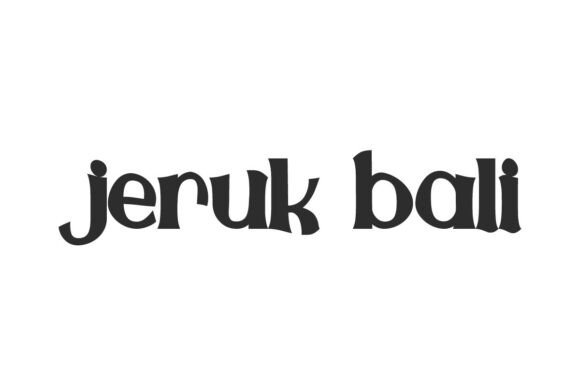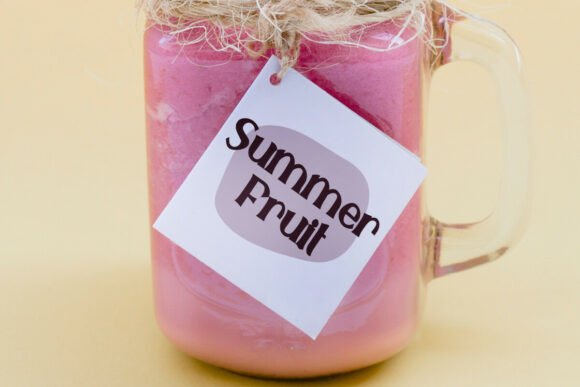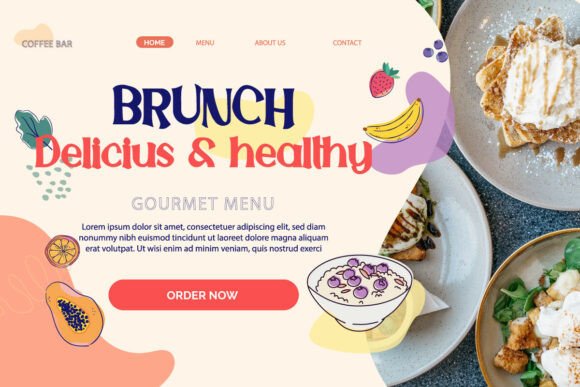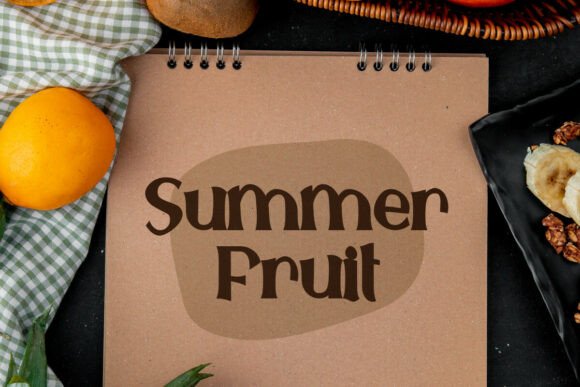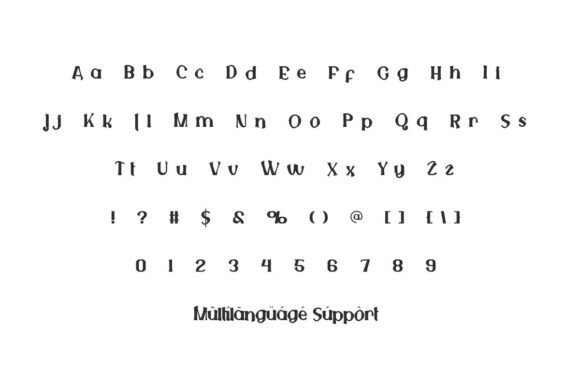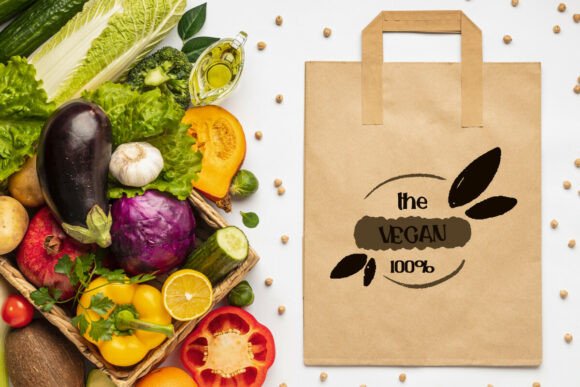
Introduction to Jeruk Bali Font Font
Fonts play a crucial role in design, and the Jeruk Bali Font font is a typeface that brings both character and versatility to any project. Whether you’re working on a branding project, a website, or a print design, the Jeruk Bali Font font offers a unique style that can elevate your work.
Jeruk Bali is a distinctively bold and playful display font that merges heavy weight with elegant, high-contrast curves for a truly unique look.
This contemporary typeface is characterized by its large, dramatic serifs and chunky letterforms, creating a powerful yet whimsical aesthetic that immediately draws the eye The unique design of the Jeruk Bali font makes it memorable and perfect for brand titles and impactful headlines.
Key Features of Jeruk Bali Font Font
Why Choose Jeruk Bali Font Font?
The Jeruk Bali Font font is more than just a typeface – it’s a design tool that helps you communicate your message with style and clarity. Its unique character set and versatile design make it suitable for a wide range of applications, from elegant invitations to bold headlines.
With its carefully crafted letterforms and balanced proportions, the Jeruk Bali Font font ensures readability and visual appeal across all mediums.
What makes Jeruk Bali Font font special?
The Jeruk Bali Font font stands out with its unique design, exceptional readability, and versatility across various design applications.